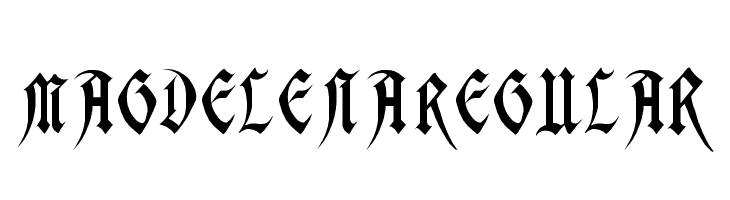
A bold, angular serif font with a modern, edgy style.
A bold, playful font with rounded characters and a whimsical style.
A futuristic, bold font with geometric, block-like characters.
A whimsical, curly, hand-drawn font with playful loops and swirls.
A bold, distressed font with a grunge aesthetic, perfect for impactful designs.
A playful handwritten font with fluid strokes and a whimsical style.
A bold, distressed font with a grunge aesthetic.